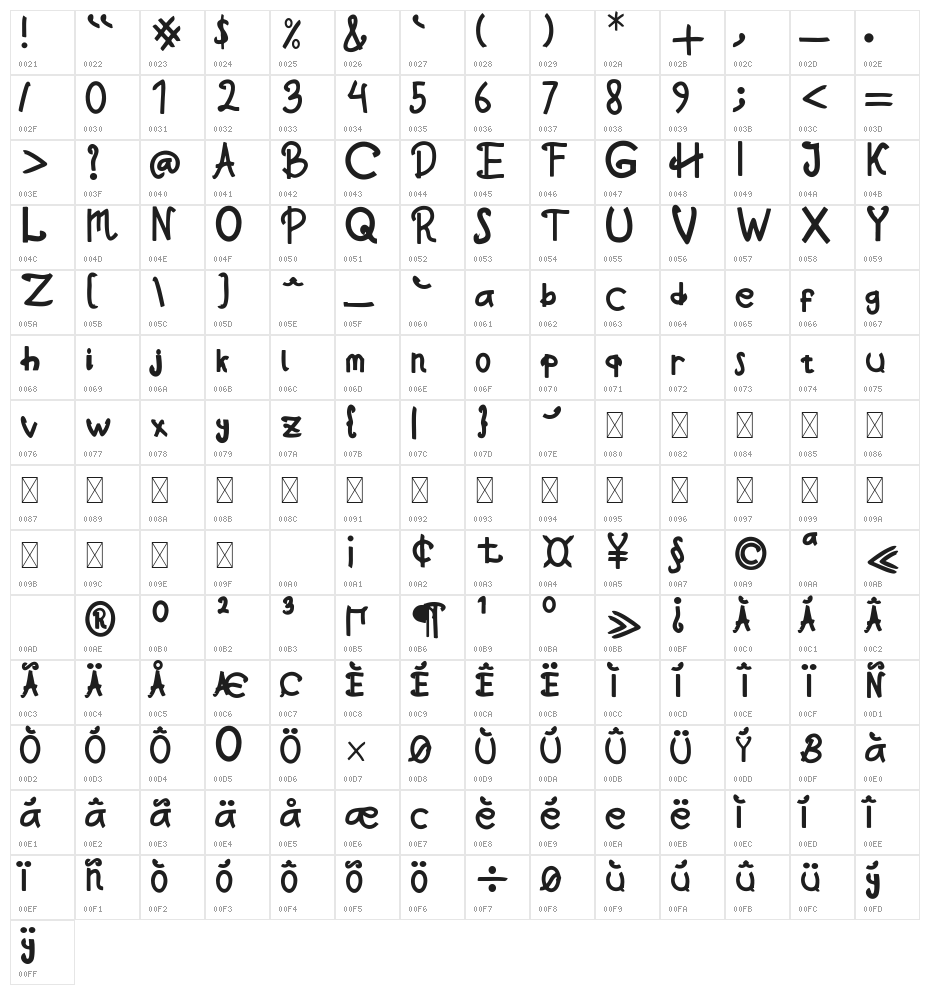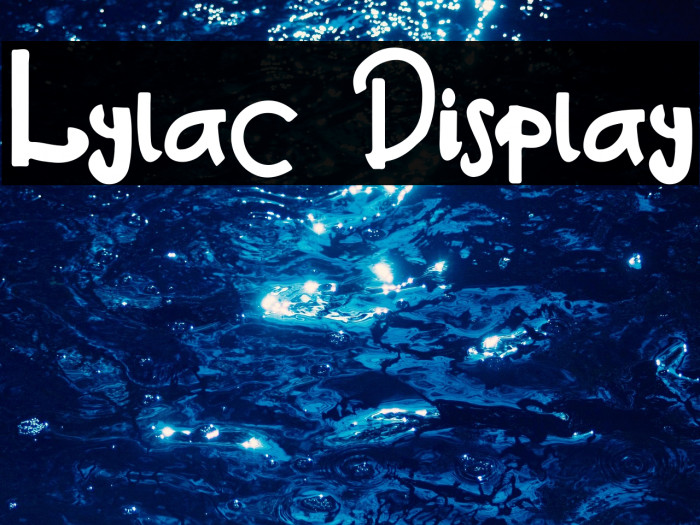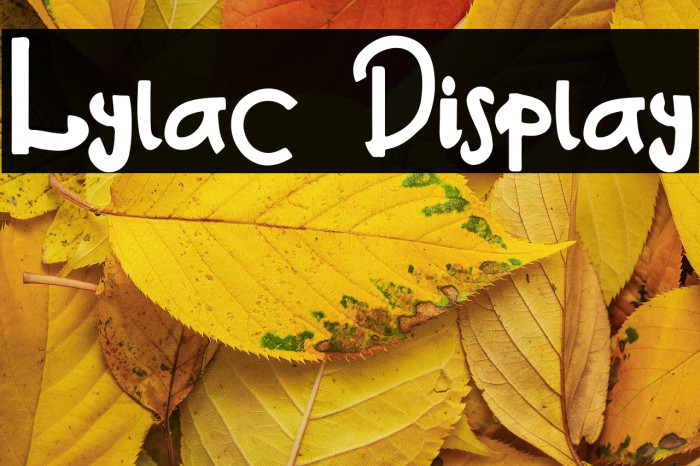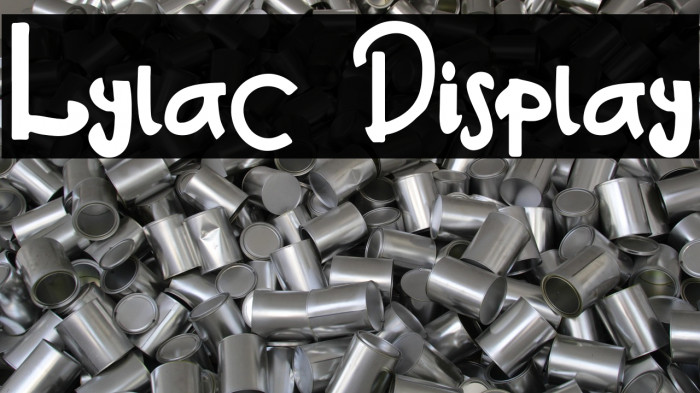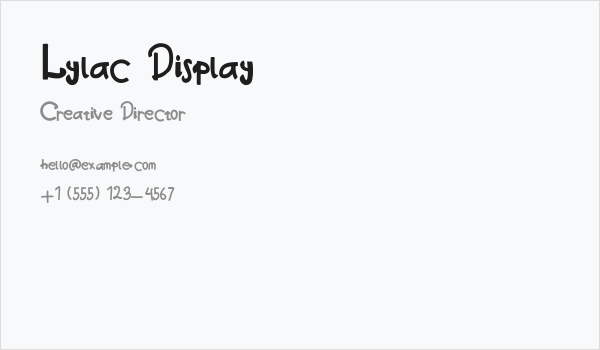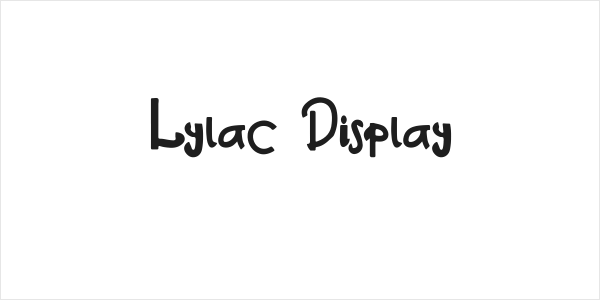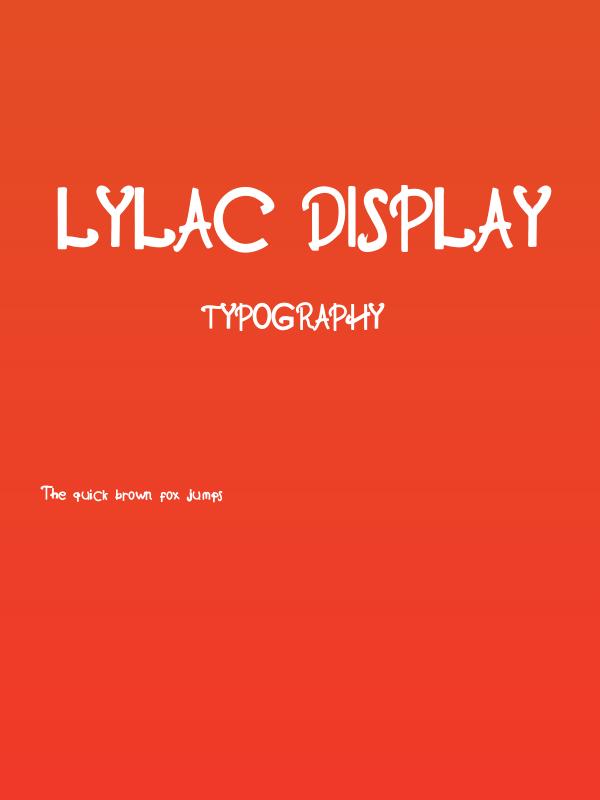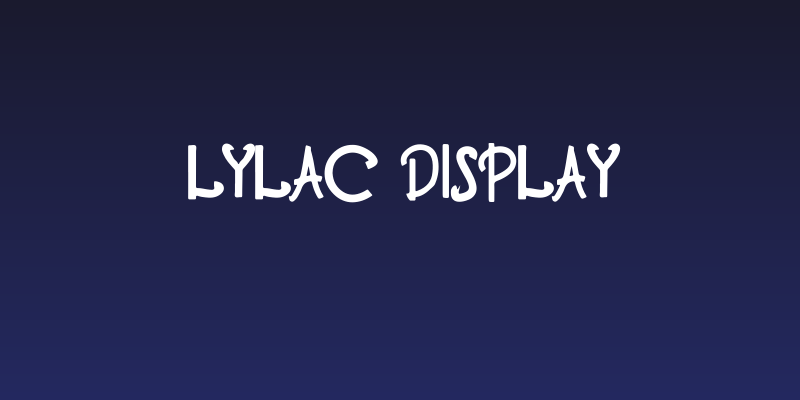
Lylac Display Font
Lylac Display Description
This font features a playful and whimsical design, characterized by its bold and slightly irregular strokes. The letters have a hand-drawn quality, with varying line thickness that adds a dynamic and lively feel. The uppercase letters are tall and slightly narrow, while the lowercase letters maintain a consistent height, creating a harmonious balance. The numbers and special characters follow the same playful style, making the font versatile for creative projects. The overall appearance is both fun and approachable, making it suitable for a variety of informal and artistic applications.
| Overall Style | Whimsical, Playful |
| Use Case | Headlines, Logos, Creative projects |
| Proposed Projects | Ideal for children's books, playful branding, greeting cards, and creative posters. |